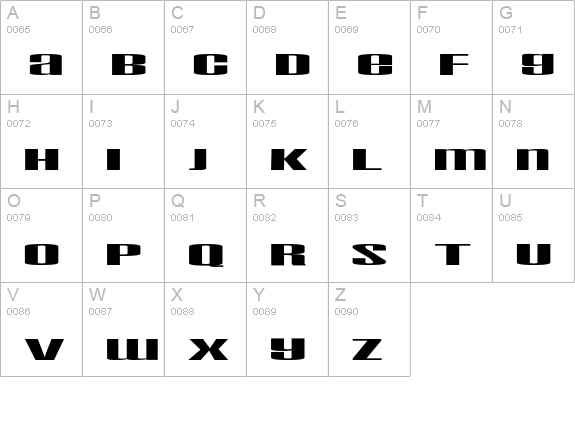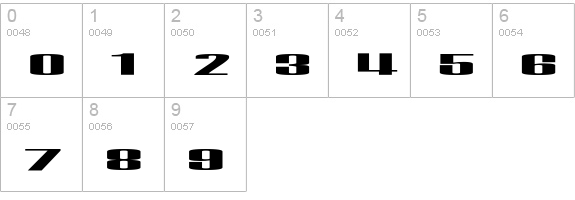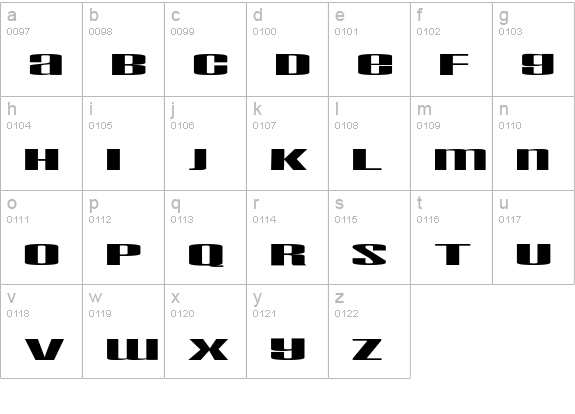
Taskeksem Font Details
Taskeksem font is a stunning display typeface that captures attention with its bold and modern design. With its unique letterforms and elegant curves, this font adds a touch of sophistication to any project. What makes Taskeksem font even more appealing is the fact that it is free! That's right, you can freely download this font at FontsMarket.com and use it for both personal and commercial projects without any restrictions. Whether you're designing a logo, creating eye-catching headlines, or crafting invitations, Taskeksem font will bring your work to life. This versatile font is perfect for a wide range of design applications. Its clean lines and balanced proportions make it legible at any size, making it ideal for both print and digital projects. From posters and packaging to websites and social media graphics, Taskeksem font will make your designs stand out from the crowd. Not only is Taskeksem font visually appealing, but it also offers a wide range of languages support, making it accessible to users worldwide. With its extensive character set, you can confidently use this font to communicate your message effectively. Whether you're a professional designer or a hobbyist, Taskeksem font is a must-have in your typographic arsenal. Its modern and elegant design, combined with its free availability, makes it a valuable addition to any project. Download Taskeksem font today at FontsMarket.com and unleash your creativity with this stunning typeface.